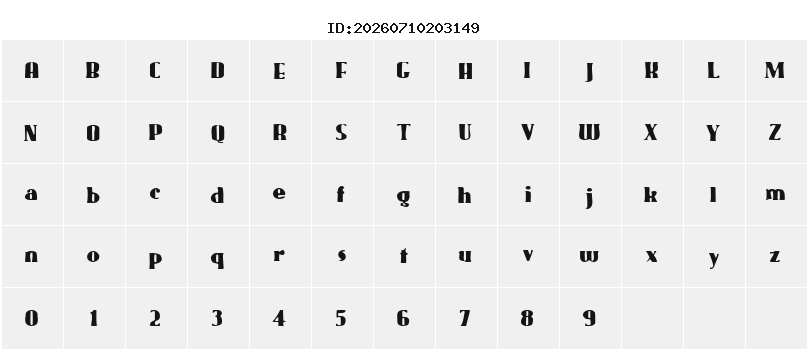
Gaggers Preview
• Font Name: Gaggers
• Font ID: Gaggers
• Full Font Name: Gaggers
• Version: Macromedia Fontographer 4.1 1/04/98
• PostScript Name: Gaggers
• Character Count: 86
About Gaggers.ttf
Gaggers.ttf is a modern, elegant sans-serif font designed for ultimate readability and visual harmony. Perfect for branding, headlines, web design, and print materials.